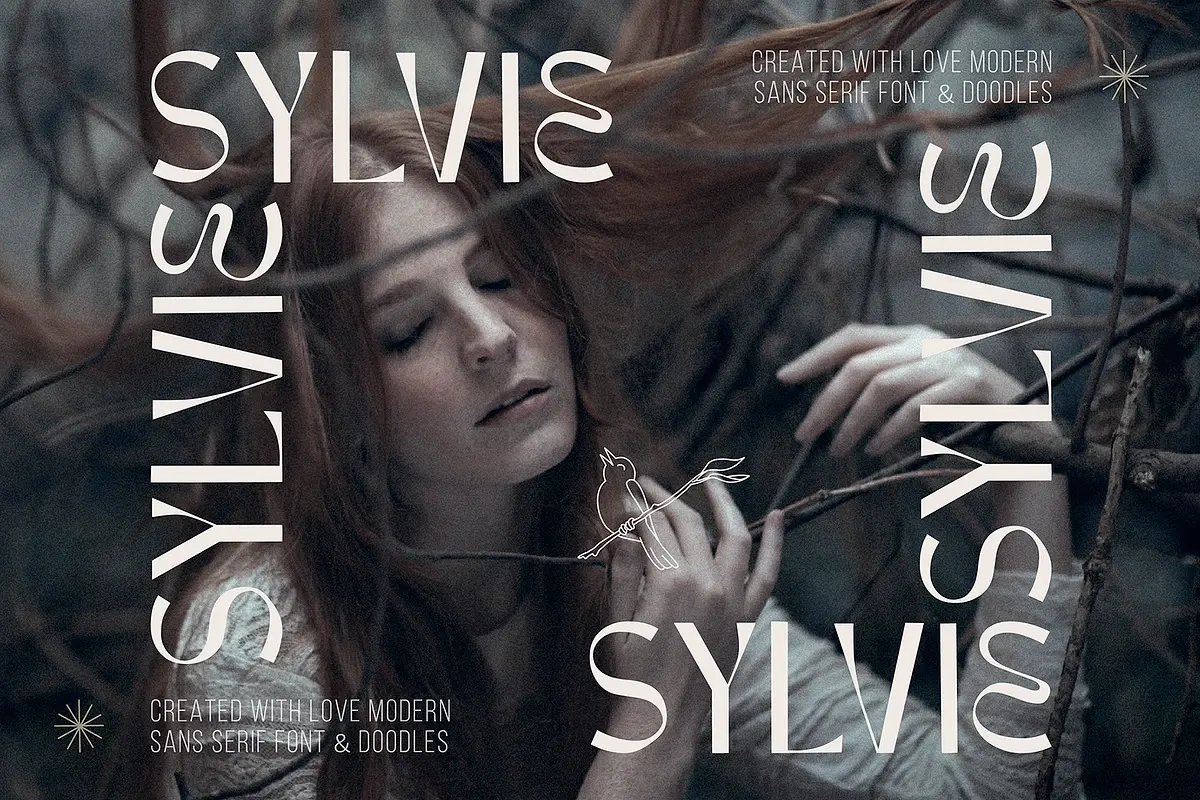
SYLVIE - Chic Display Font Free Download
SYLVIE – Chic Display Font Free Download is a fashionable and elegant typeface designed to bring sophistication and style to your visual projects. Please note, you are required to purchase this font for commercial use. It is available for free download for testing and personal projects only.
With its high-contrast strokes, graceful curves, and editorial flair, SYLVIE is perfect for fashion branding, magazine headlines, luxury packaging, social media graphics, and upscale invitations. It’s the ideal choice for designers who want to make a bold yet refined statement.